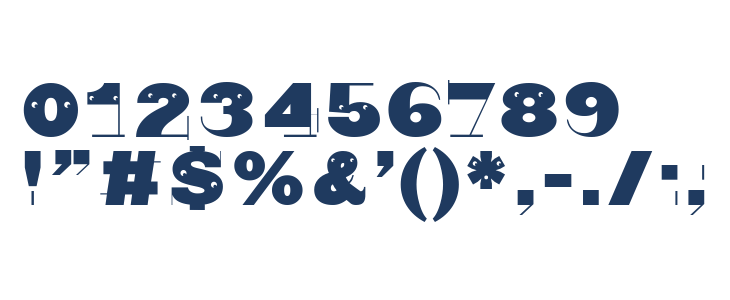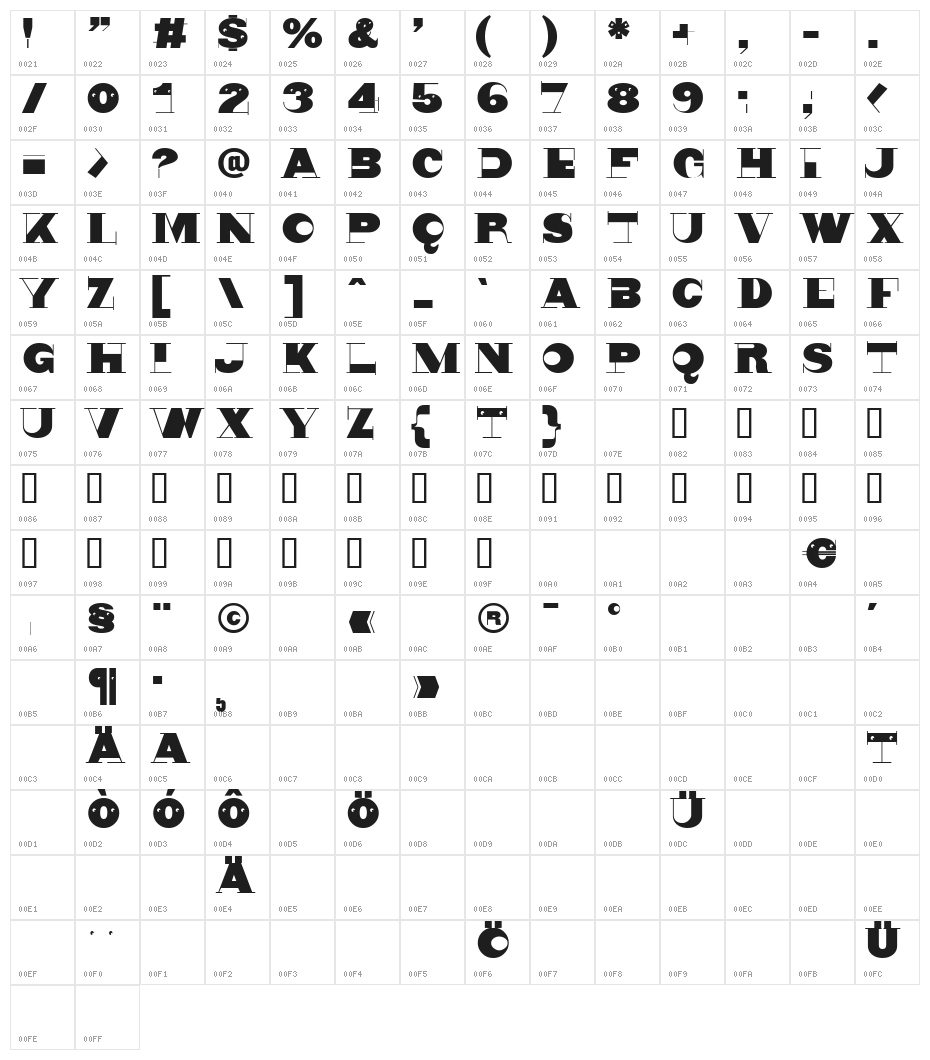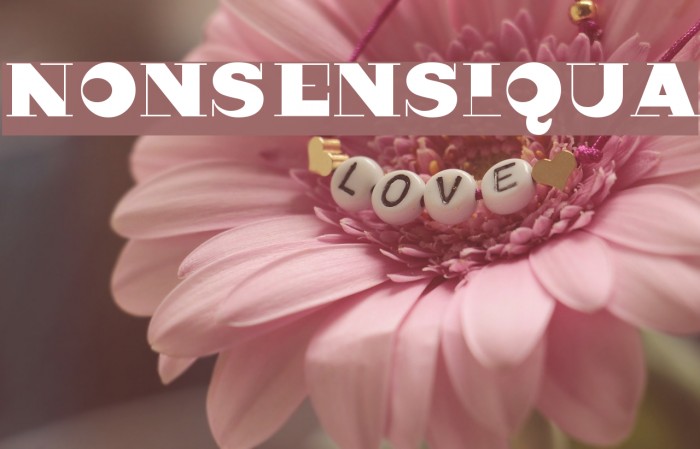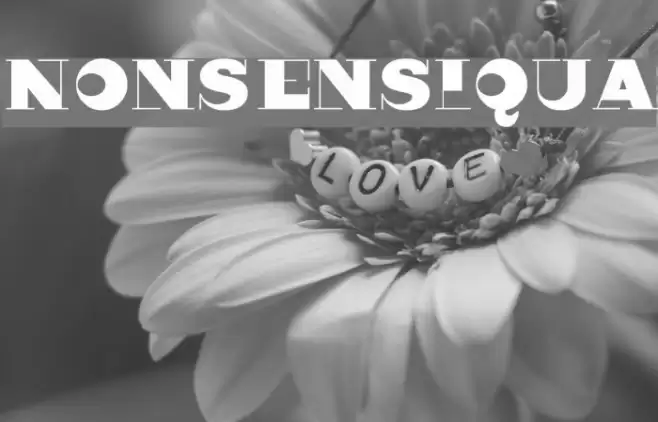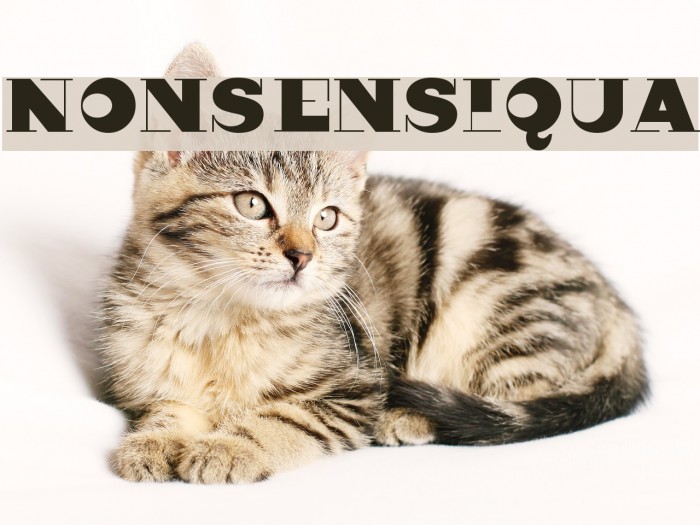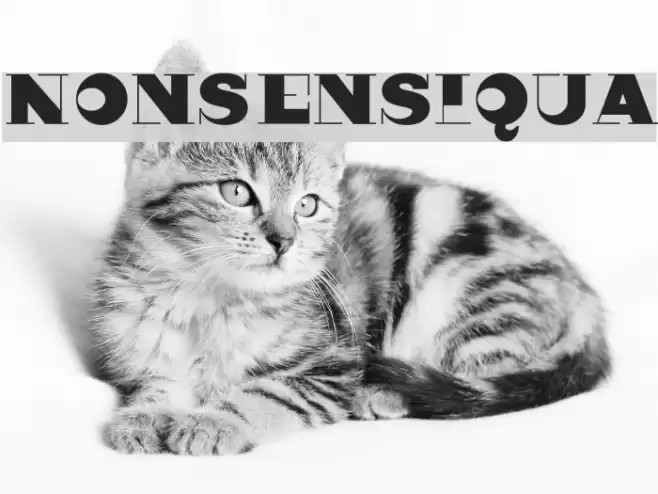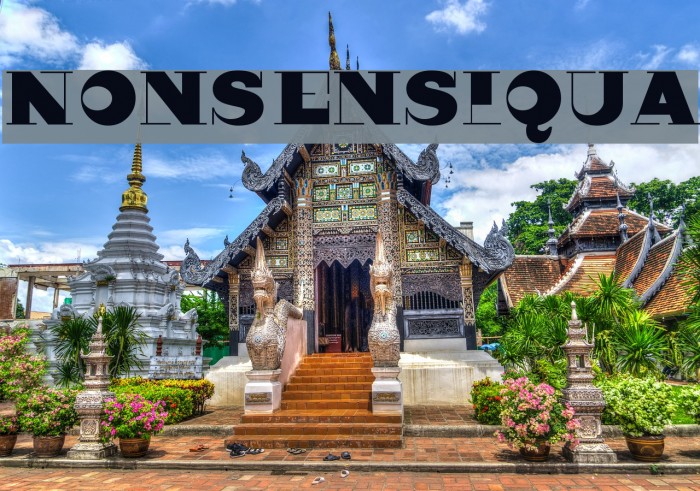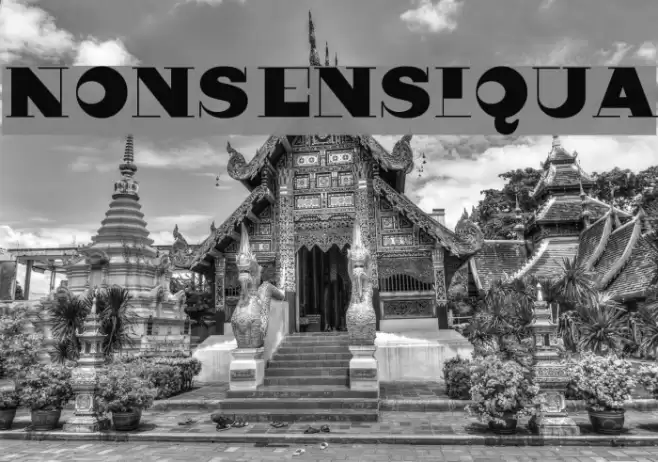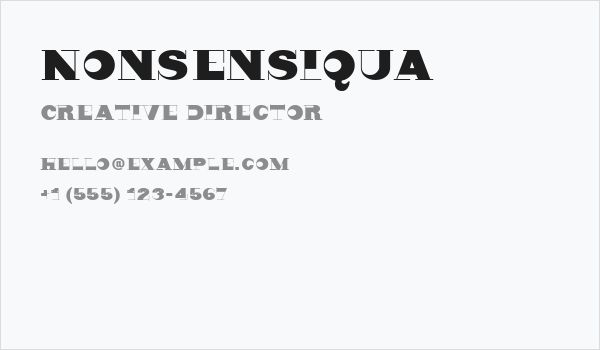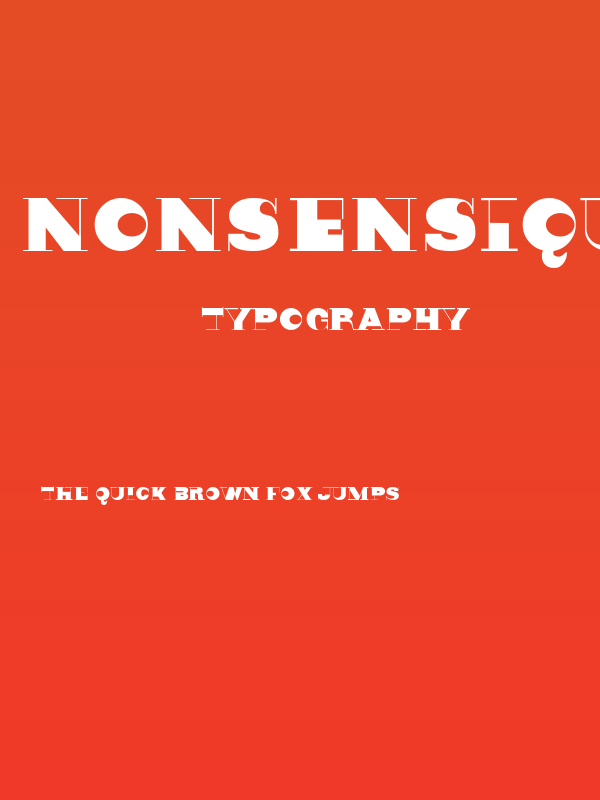
Nonsensiqua Font
Nonsensiqua Description
This font features a bold and striking design with a unique blend of solid and outlined elements. The uppercase letters are characterized by thick, bold strokes that are partially filled, creating a dynamic and eye-catching appearance. The lowercase letters maintain this boldness, with a playful and slightly whimsical touch. Numbers and special characters follow the same bold style, ensuring consistency across all elements. The font's design is both modern and decorative, making it suitable for projects that require a strong visual impact.